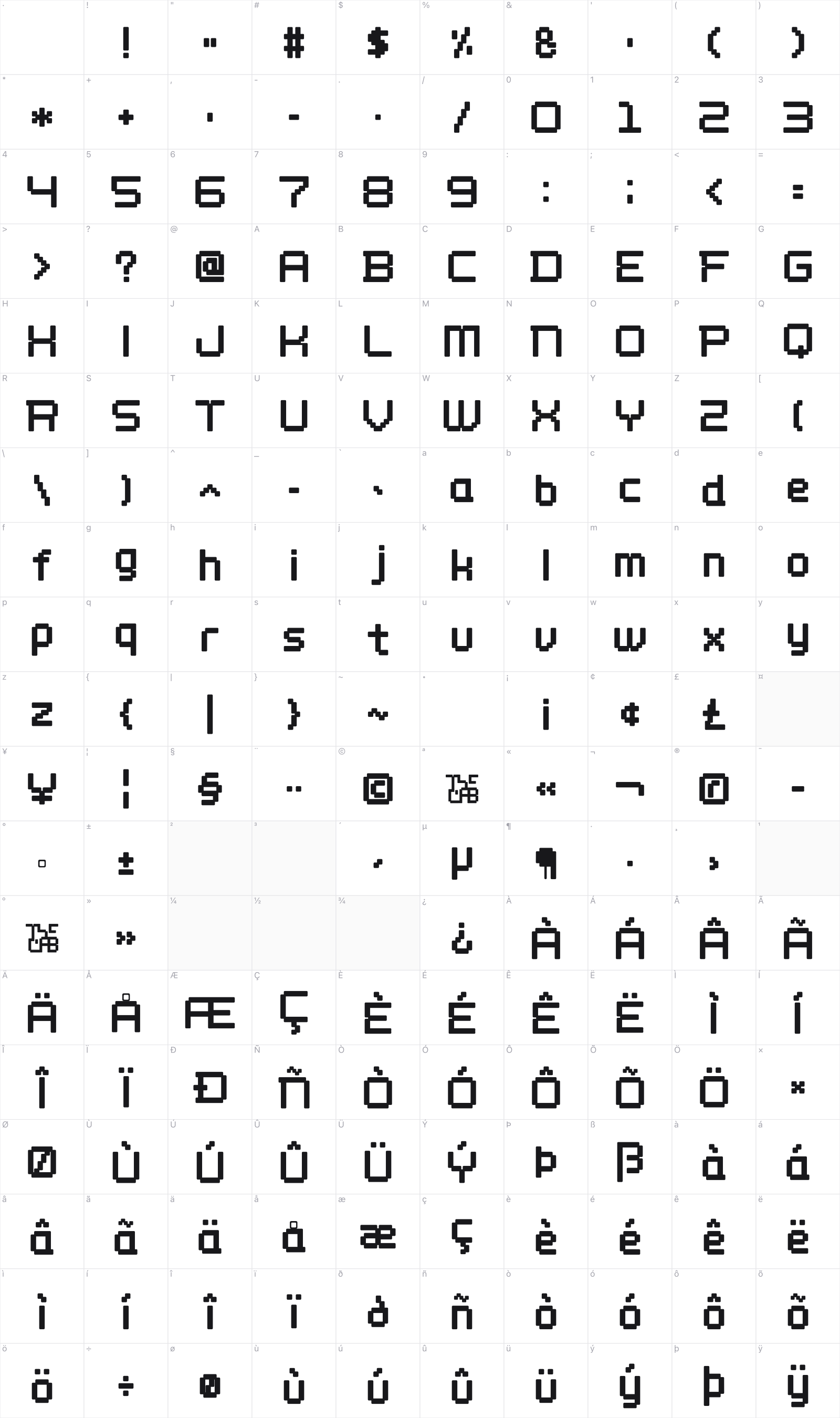
Wellbutrin
by Apostrophic Labs
Wellbutrin is a bold bitmap face from Apostrophic Labs with chunky, blocky pixel letterforms that feel lifted from an early computer terminal or 8-bit title screen. The monospace structure keeps everything rigid and grid-locked, giving it that raw digital aesthetic that works for headlines, retro gaming projects, and lo-fi tech branding. Not built for body text, but at large sizes the pixelated weight carries real punch.